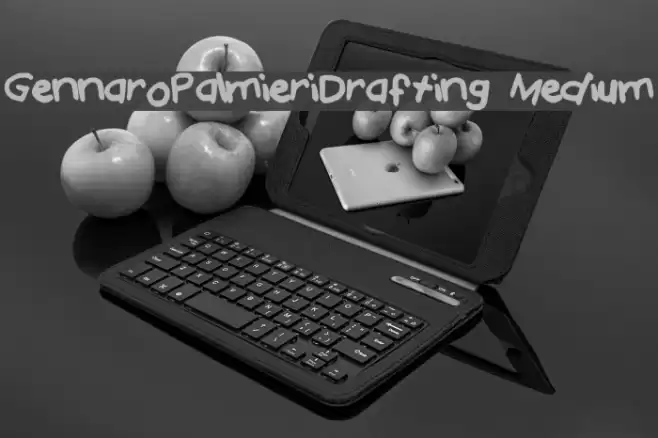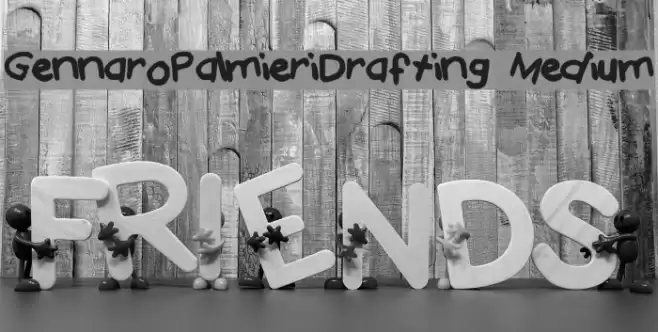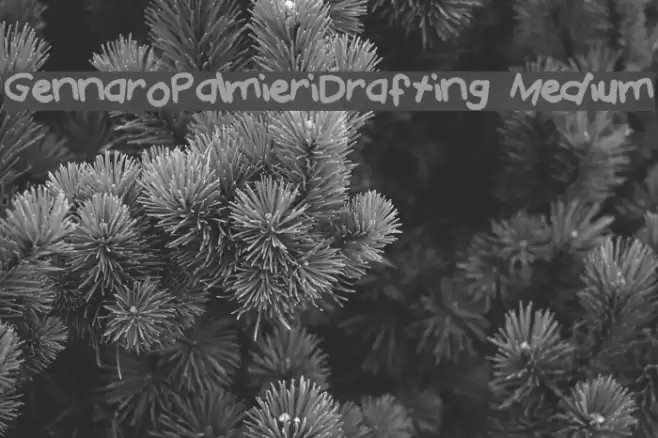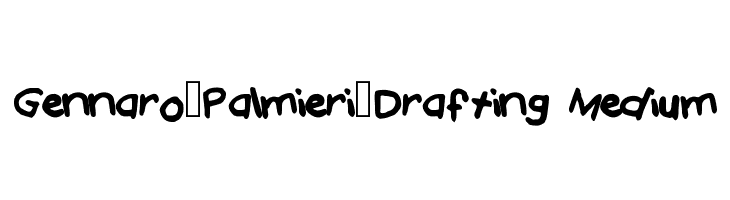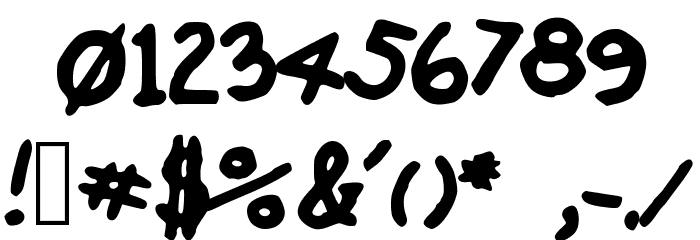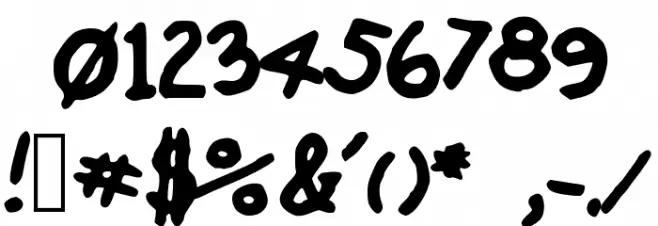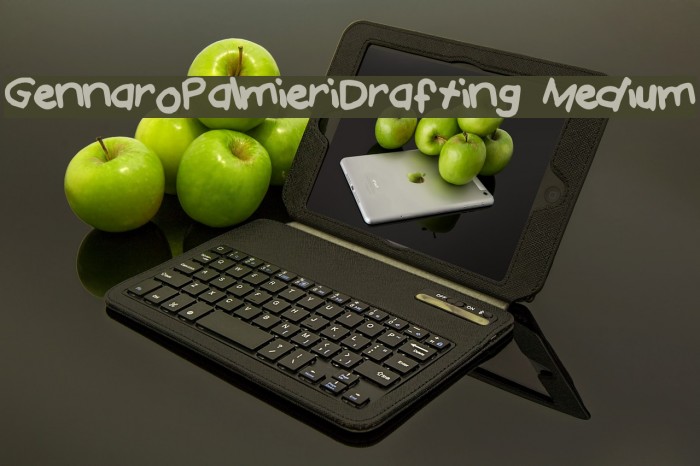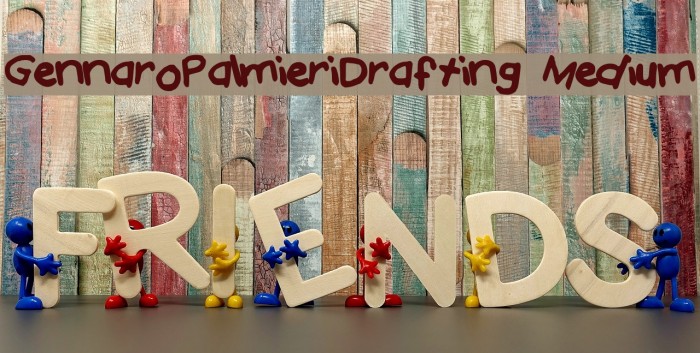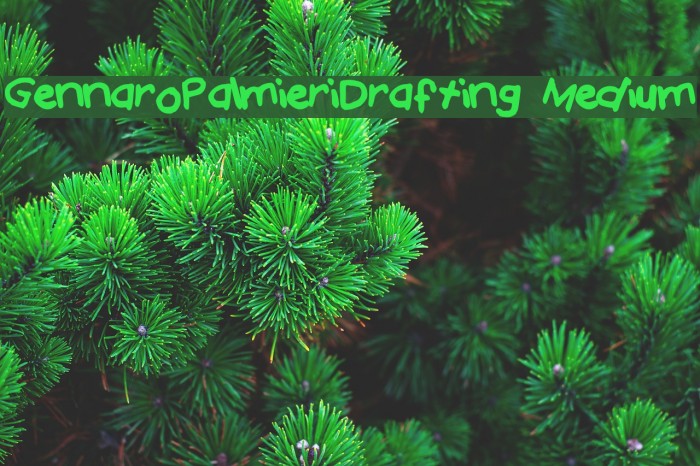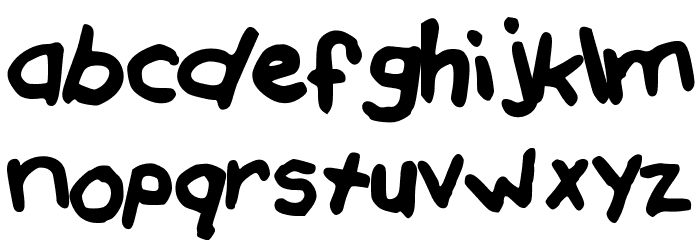
Gennaro_Palmieri_Drafting Medium Font
Gennaro_Palmieri_Drafting Medium Description
This font exhibits a playful and informal style, characterized by its bold and slightly irregular strokes. The letters have a hand-drawn appearance, with a dynamic and energetic feel. The uppercase and lowercase letters maintain a consistent style, with rounded edges and a slightly slanted orientation, adding to its casual charm. The numbers and special characters follow the same aesthetic, ensuring a cohesive look across all glyphs. This font is well-suited for projects that require a friendly and approachable tone.
A playful, hand-drawn font with bold, irregular strokes and a casual style from Uncategorized fonts.
- Proposed Projects: Ideal for children's books, casual branding, greeting cards, and playful posters.
- Overall Style: Casual